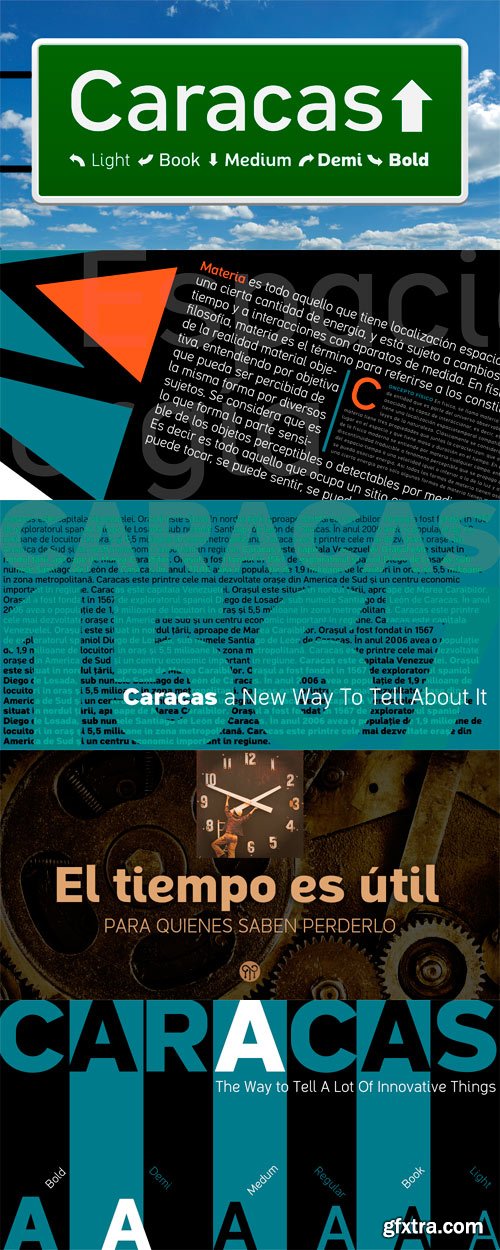
Caracas Pro - A New Family of Sans Serif Comfortable to Read $435
- Caracas Pro is a new family of sans serif fonts, looking friendly, sweet and comfortable to read. Where text flow between straight lines and round by becoming transparent in the interest of readability. Caracas is ideal for working in small letters and texts of a technical nature. Caracas is a humanistic approach to reading sans forms. Caracas Pro is inspired by geometric shapes, but looking softness and sweetness in the fluidity of forms and spaces, is a balanced mix between straight and curved. Caracas is ideal for reading text, working fine on a small scale. Best for technical texts where legibility is imperative.